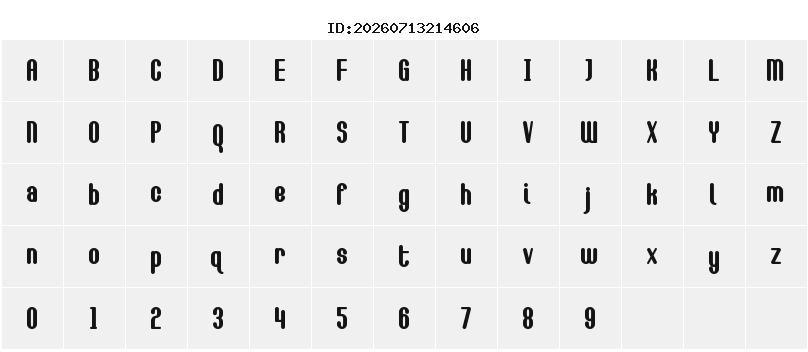
• Font Name: Callie-Mae
• Designer: Neale Davidson
• Manufacturer: Pixel Sagas
About Callie-Mae.otf
Callie-Mae.otf is a modern, elegant sans-serif font designed for ultimate readability and visual harmony. Perfect for branding, headlines, web design, and print materials.